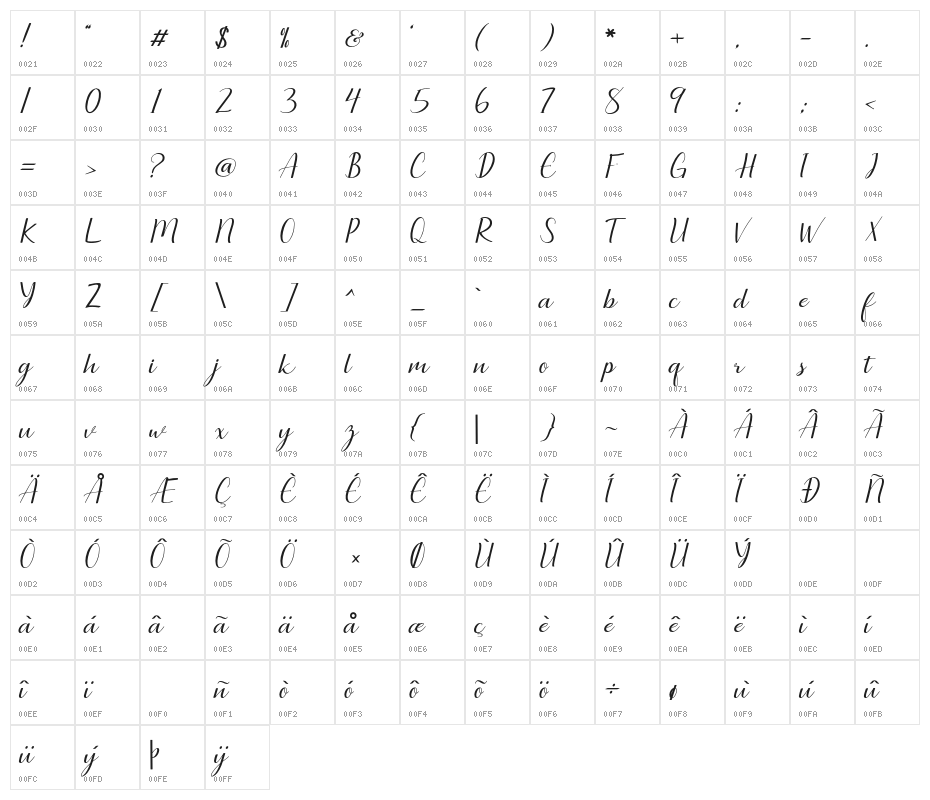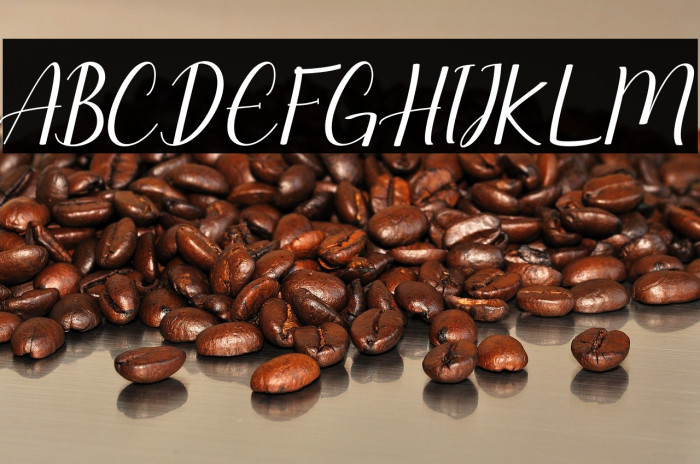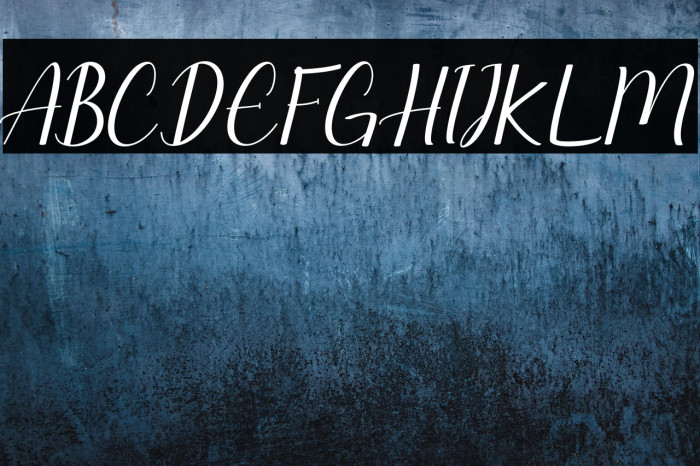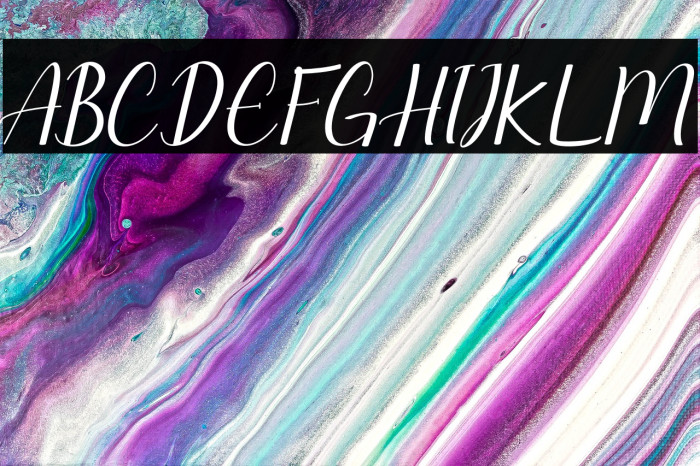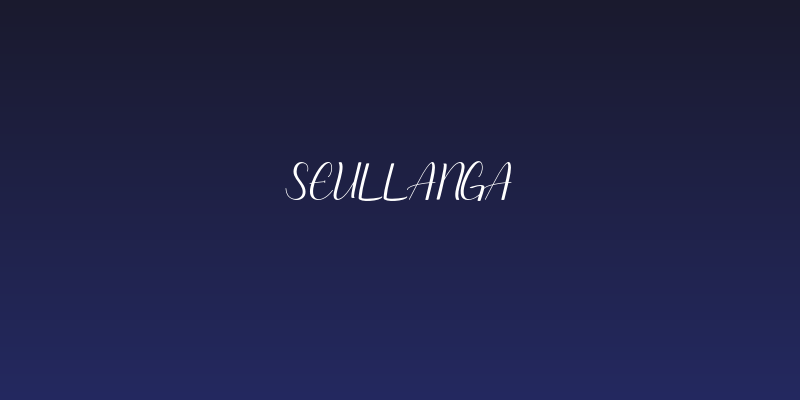
Seullanga Font
Seullanga Description
This font exhibits a flowing, elegant script style with a modern touch. The uppercase letters are tall and slightly slanted, giving a sense of movement and grace. The lowercase letters maintain a consistent style, with smooth curves and delicate connections between characters. The numerals are well-proportioned, matching the overall aesthetic of the font. Special characters are designed to blend seamlessly with the letters, maintaining the font's cohesive look. The font's overall appearance is sophisticated and stylish, making it suitable for various creative applications.
| Proposed Projects | Ideal for wedding invitations, branding, greeting cards, and elegant packaging designs. |